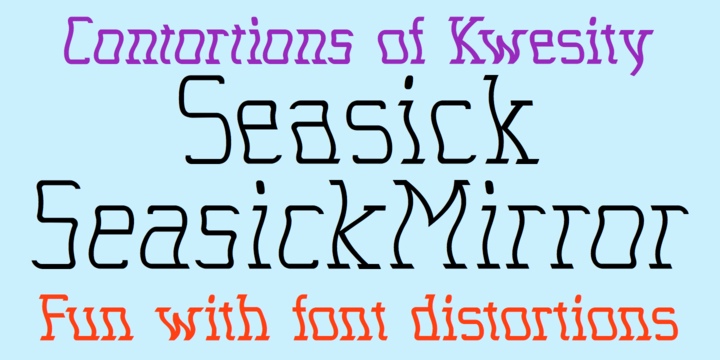
Seasick Font
Seasick Font is perfect for nautical-themed restaurants, maritime adventure branding, sailing club logos, beach resort signage, pirate-themed entertainment, coastal brewery labels, surf shop graphics, marine equipment packaging, ocean conservation campaigns, and seaside festival posters. This distinctive typeface excels in applications where oceanic movement, maritime heritage, and adventurous spirit are essential brand characteristics.
What makes Seasick Font exciting is its unique ability to capture the rolling motion of ocean waves through cleverly distorted letterforms that create a sense of constant movement and fluidity. The font features organic curves and intentionally unsteady baselines that mimic the sensation of being aboard a ship in choppy waters. Its playful yet purposeful design instantly communicates maritime themes while maintaining excellent readability, making it perfect for brands that want to evoke the romance and adventure of life at sea.
The Seasick Font family typically includes multiple variations with different degrees of wave distortion, from subtle maritime influence to dramatically rolling effects. Many versions feature alternate characters with enhanced nautical characteristics, decorative ligatures inspired by rope knots, and special symbols including anchors, ship wheels, and compass elements. Some collections include complementary border elements and ornamental flourishes that reinforce the oceanic aesthetic for comprehensive brand applications.